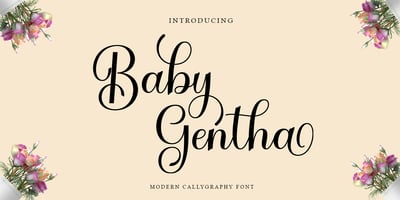
Baby Gentha Script
Baby Gentha Script font
Baby Gentha Script Font Family was designed by Nurul Kamal and published by Nk Studio. Baby Gentha Script contains 1 styles and family package options. Baby Gentha is a cute and romantic calligraphy typeface with the characters dancing along the baseline. It has a casual yet elegant touch. It can be used for various purposes such as logos, wedding invitations, titles, t-shirts, letterheads, name boards, labels, news, posters, badges etc.The font includes OpenType features with alternative styles, ligatures, and multiple language support.To enable OpenType Stylistic alternates, you need a program that supports OpenType features such as Adobe Illustrator CS, Adobe Indesign & CorelDraw X6-X7, Microsoft Word 2010 or a later version.There are additional ways to swap / swap, using Character Map (Windows), Nexus Fonts (Windows), Font Book (Mac) or a software program such as PopChar (for Windows and Mac).